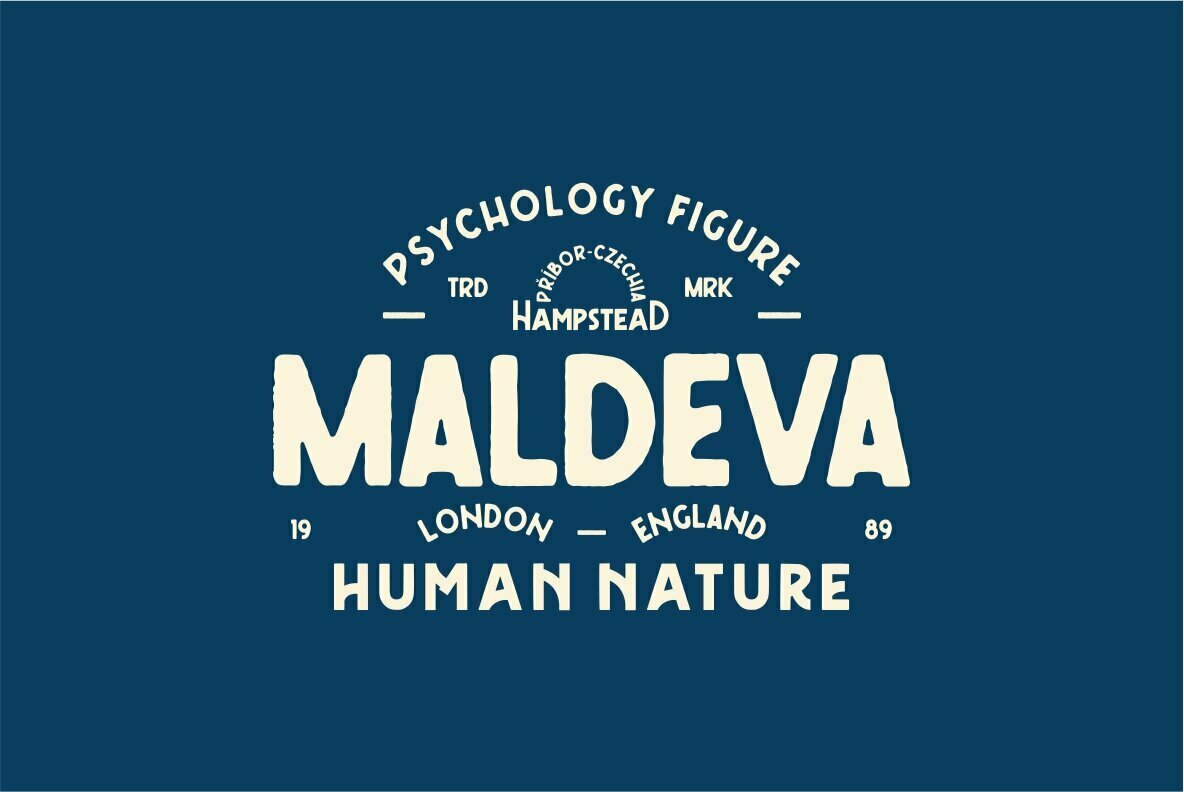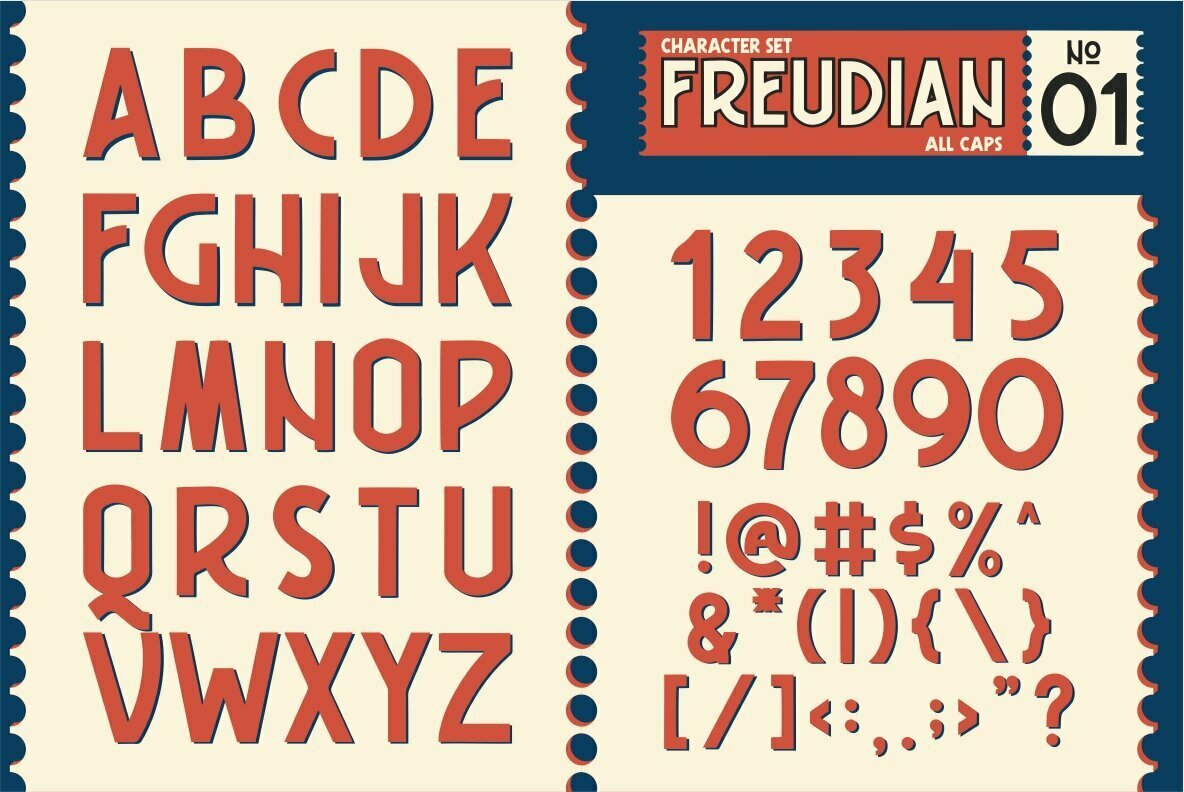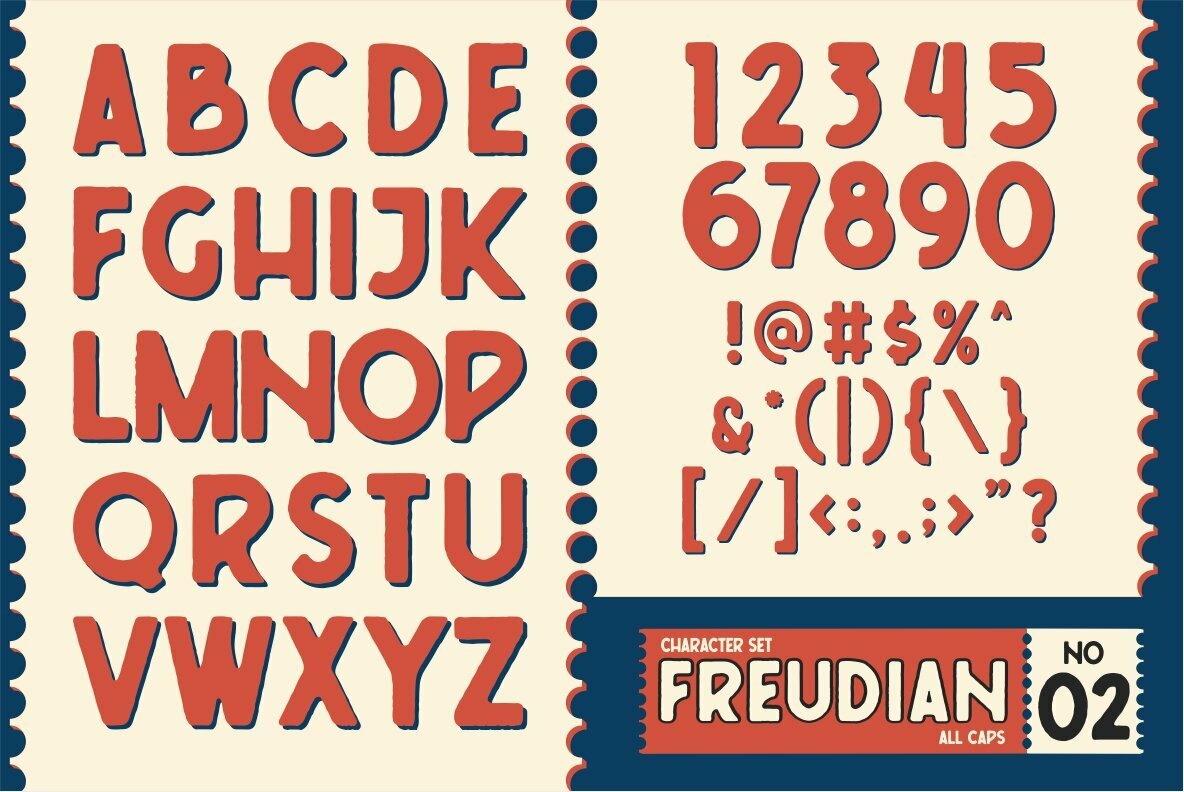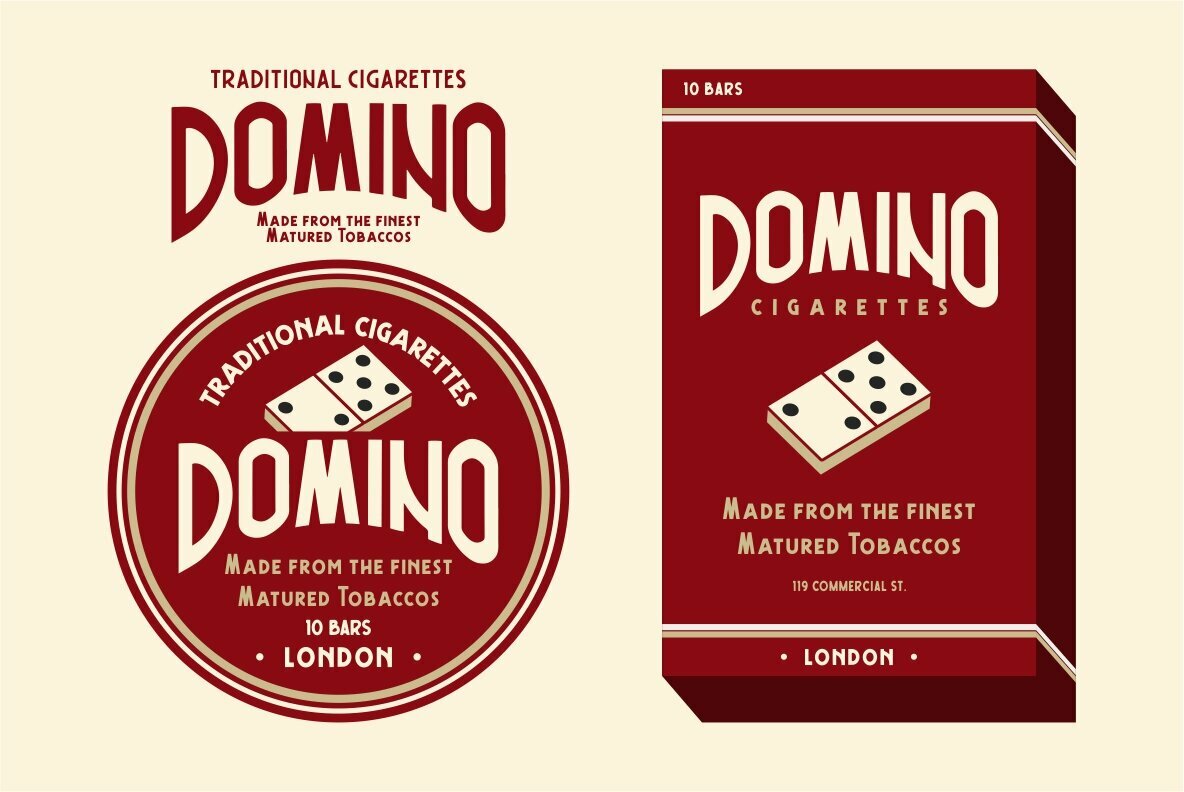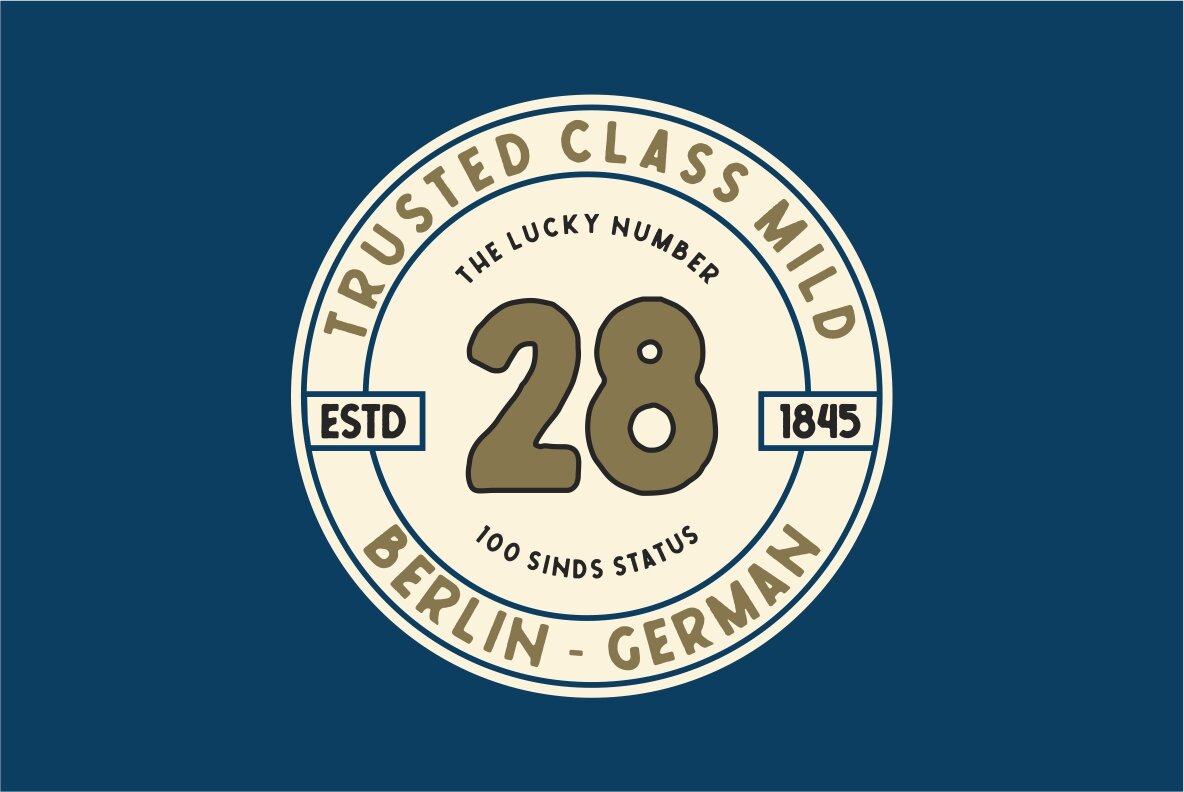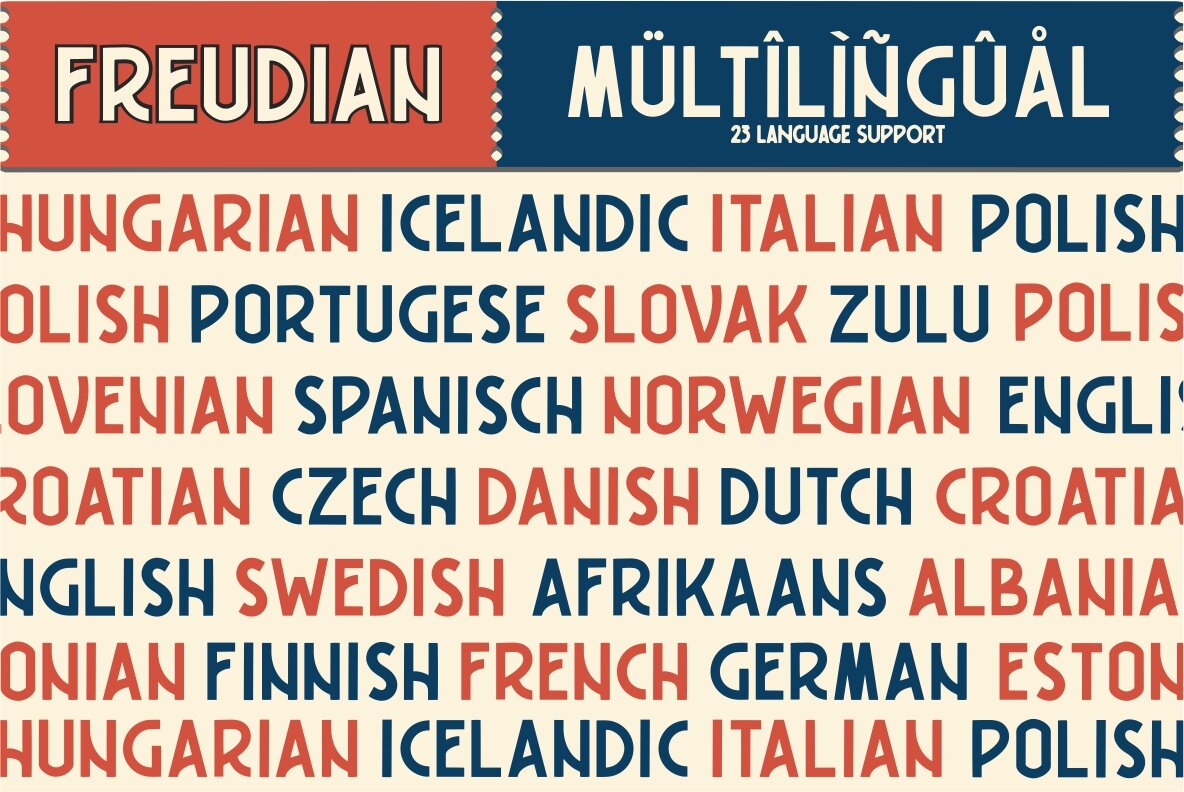
FREUDIAN Font
Freudian, designed by Risman Ginarwan, embodies a vintage aesthetic with its classic, handmade appearance, ideal for those drawn to old-world charm. Whether you’re crafting a hand-drawn logo or seeking to infuse a nostalgic touch into your project, Freudian offers the versatility and allure of a bygone era. Its aesthetic is particularly suited for graphic design avenues including branding materials, t-shirts, prints, business cards, logos, posters, photography, and quotes.Freudian: A Vintage Typeface for Timeless Design